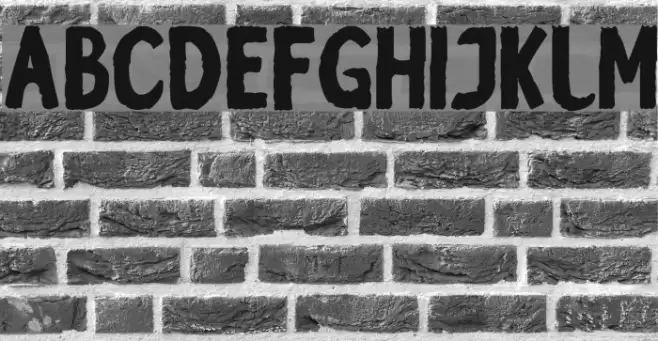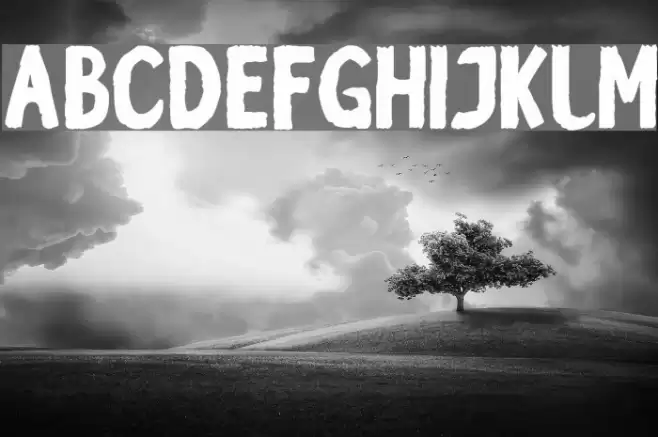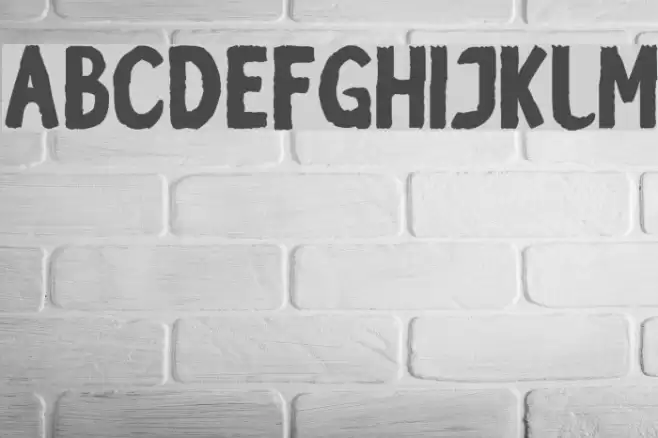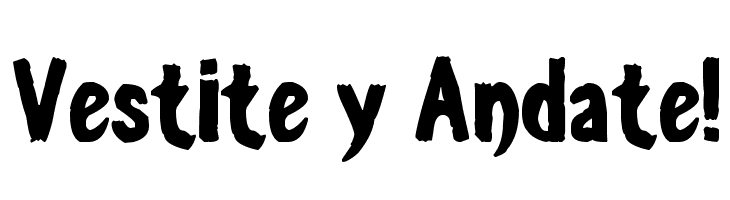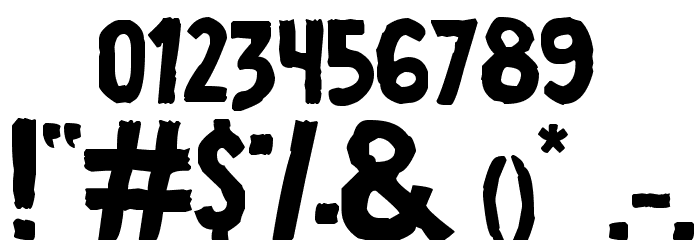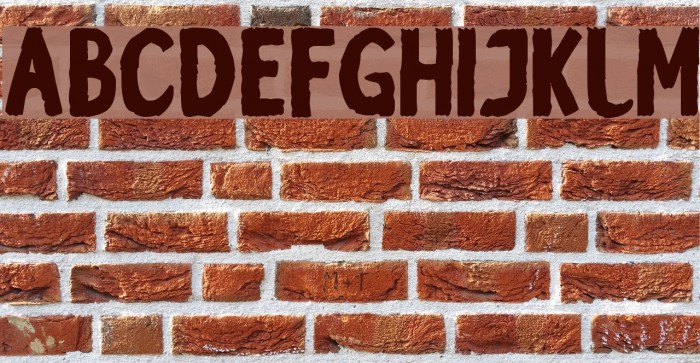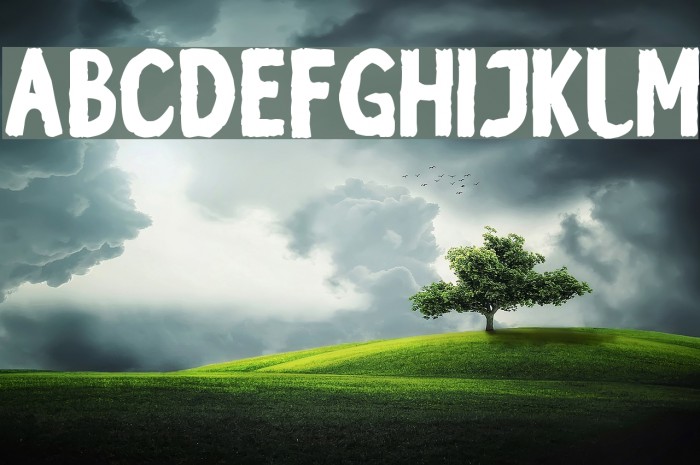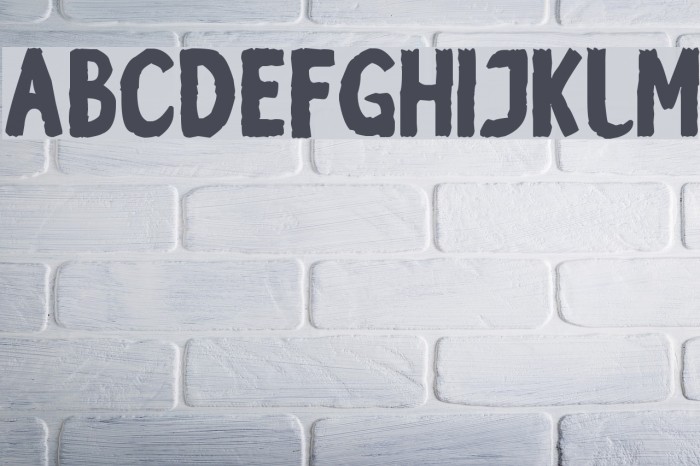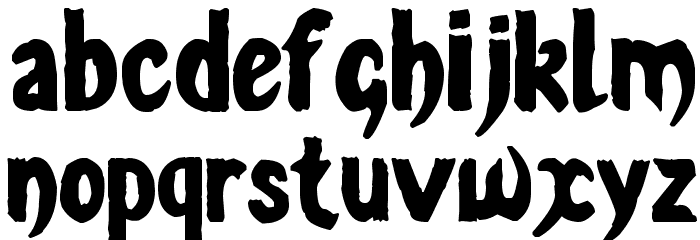
Vestite y Andate! Font
Vestite y Andate! Description
This font exhibits a bold and expressive style with a hand-painted appearance. The characters are thick and slightly irregular, giving a dynamic and artistic feel. The uppercase letters are robust and commanding, while the lowercase letters maintain a consistent flow with unique curves and angles. Numbers and special characters follow the same bold and artistic theme, making them stand out. The overall design suggests a sense of creativity and spontaneity, ideal for projects that require a strong visual impact.
A bold, hand-painted style font with an expressive and artistic flair from Distorted Eroded fonts.
- Proposed Projects: Ideal for posters, album covers, artistic branding, and creative advertising campaigns.
- Overall Style: Artistic, Expressive
- Use Case: Headlines, Posters, Artistic Branding